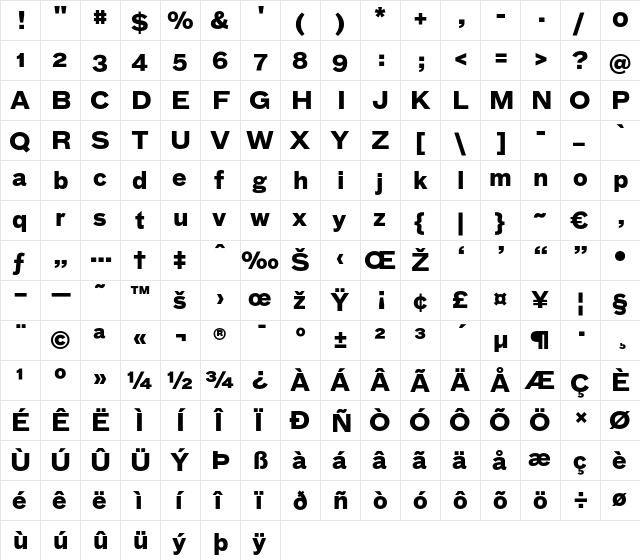
Bau-Bold Regular
Design Context for Bau-Bold Typeface
Bau-Bold takes a measured approach to typography — its balanced proportions and neutral character make it a reliable workhorse for both digital and print work. The heavy weight commands attention and anchors typographic hierarchies.